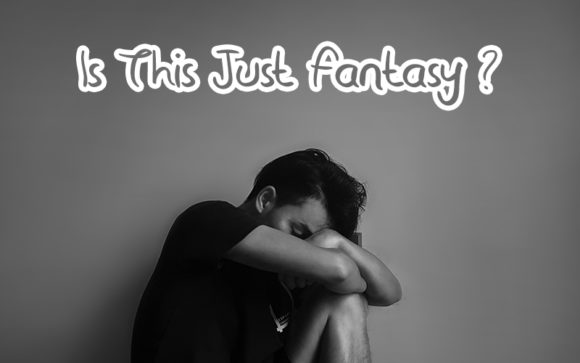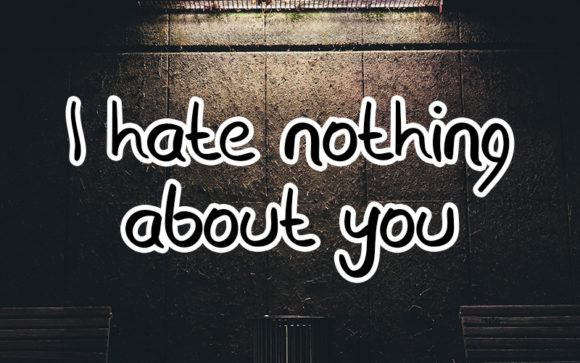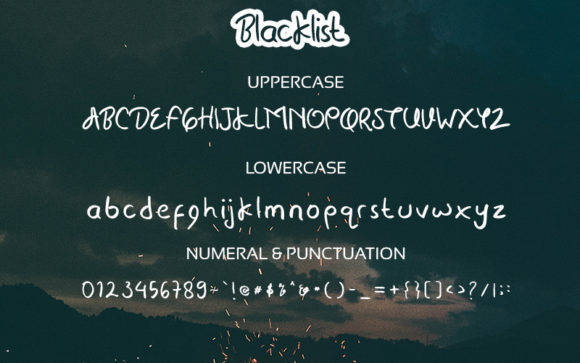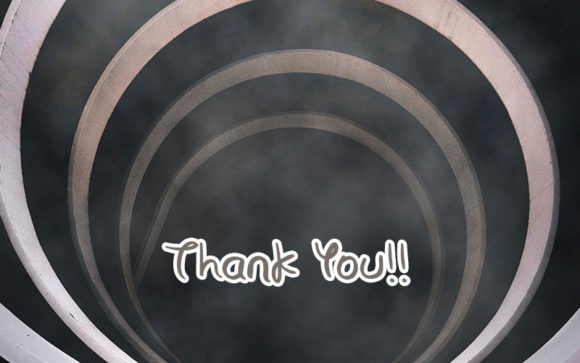
Blacklist Font
About Blacklist Font
Blacklist embodies fun, quirkiness and authenticity. This enchanting handwritten font will turn any creative idea into a true standout.